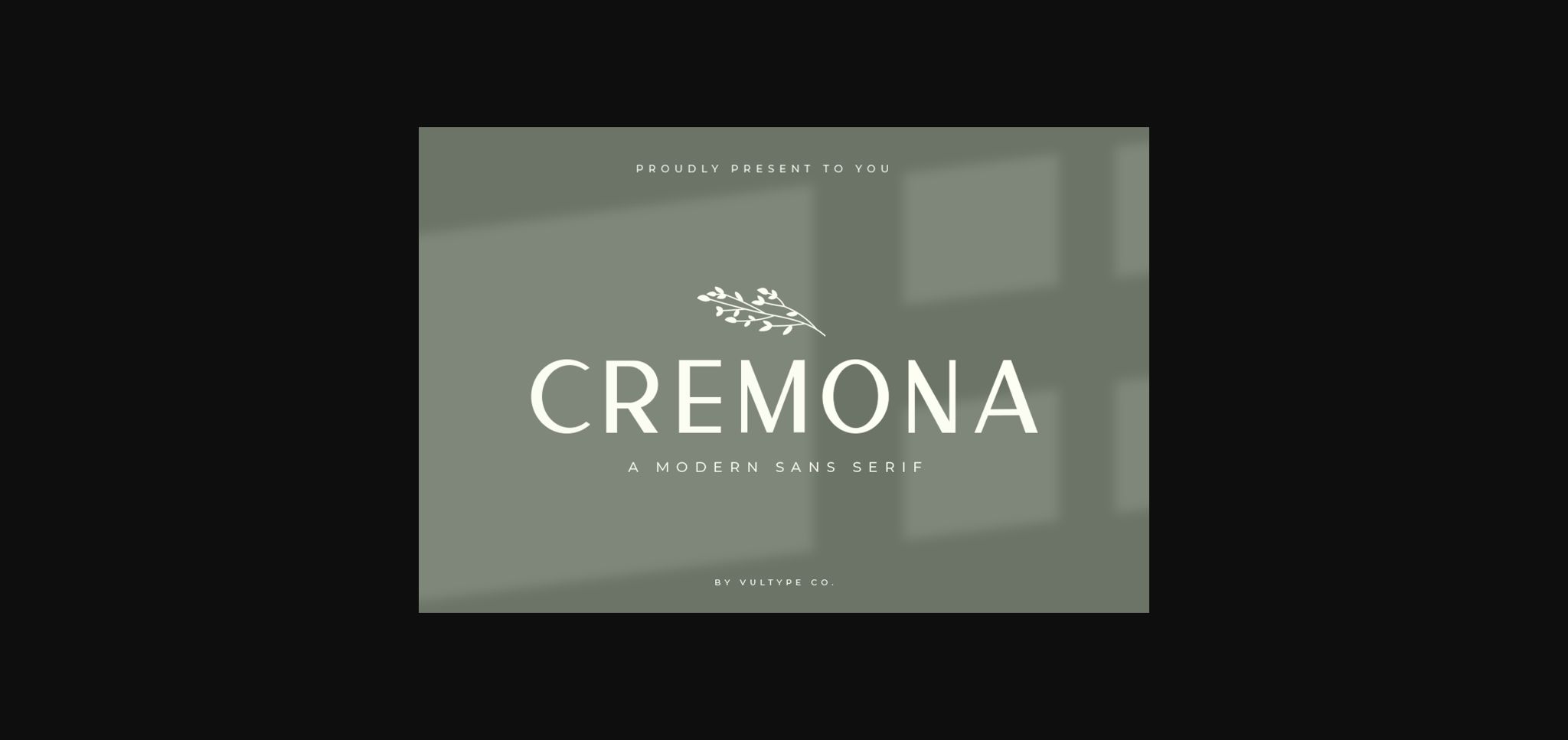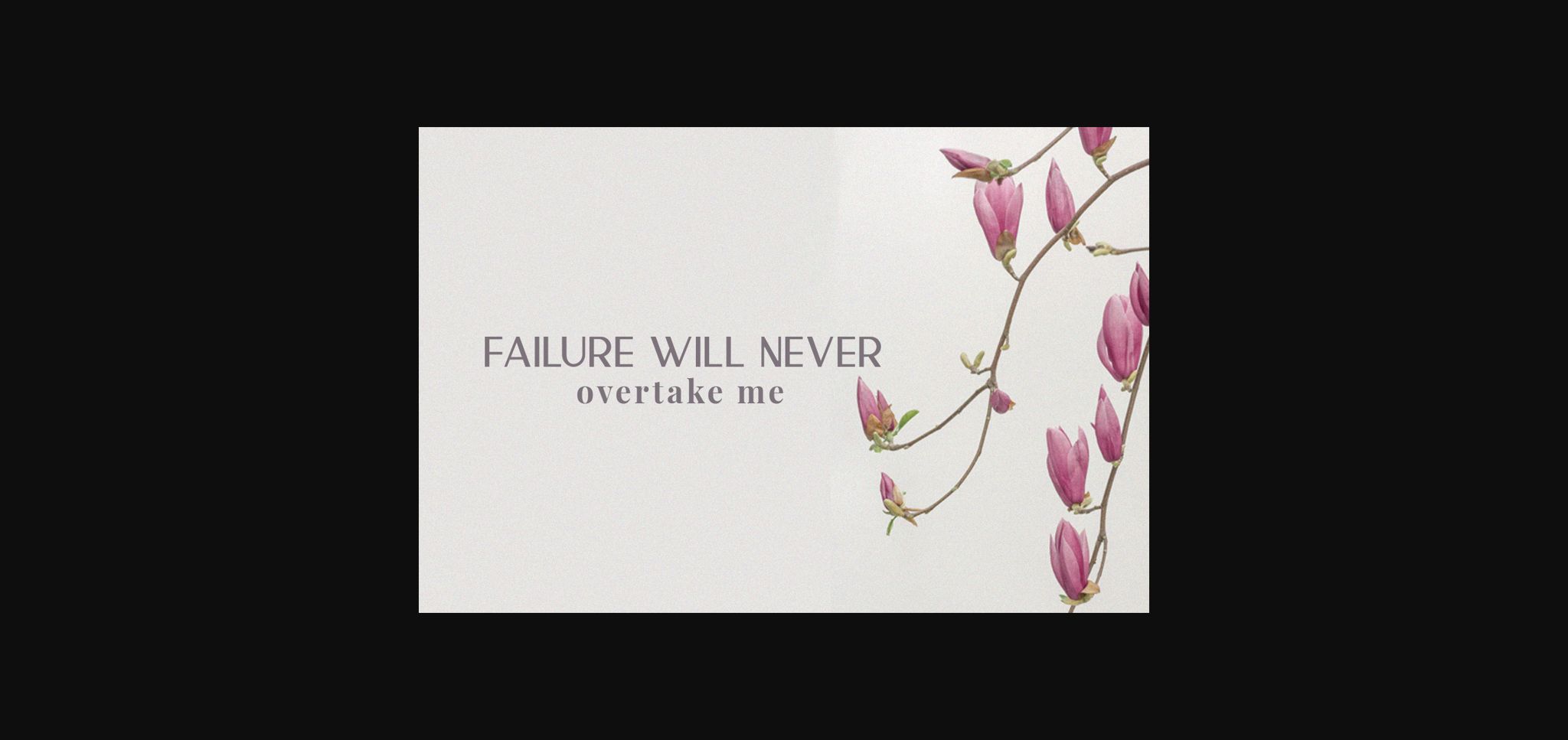
About Cremona Font
Cremona is a clean and minimal sans serif font coming in 2 weights (Regular & Bold). It’s the ideal font for adding romance & charm to your next design projects!